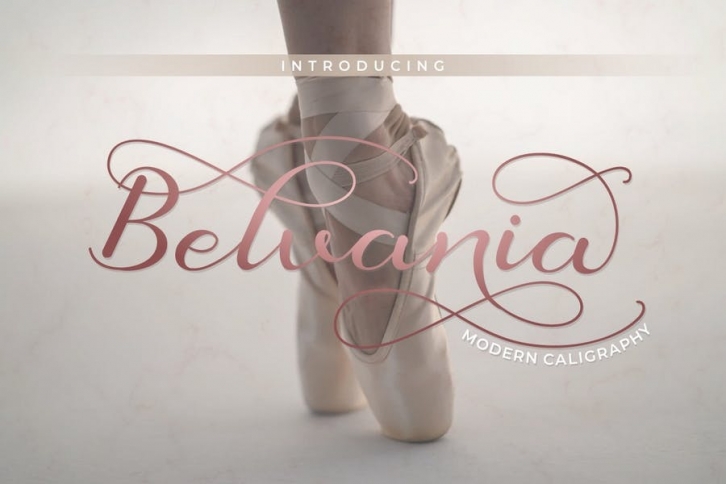
Belvania
Belvania is a romantic and sweet handwritten font. It looks stunning on wedding invitations, thank you cards, quotes, greeting cards, logos, business cards and every other design which needs a handwritten touch.